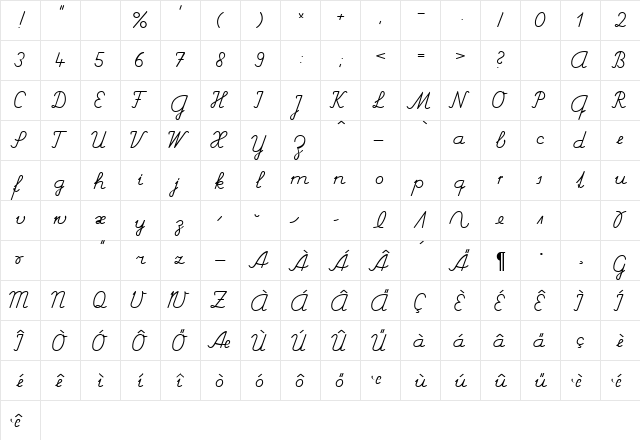
Schulschrift CH DB Normal
Schulschrift CH DB offers clean, dependable letterforms without strong stylistic allegiance, making it a practical choice for designers who need flexibility.